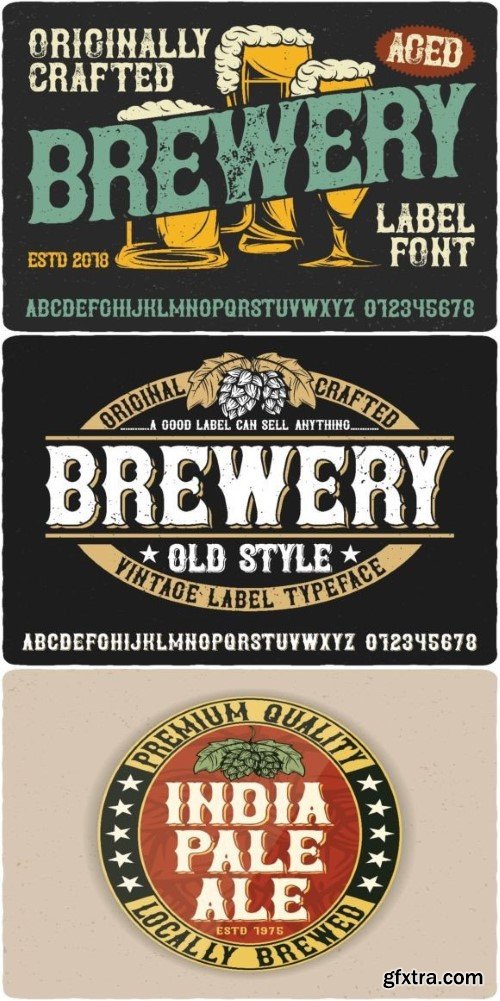
啤酒字体
“Exclusive Display Fonts: Unleash Your Creativity in Amazing Style! Get high-quality display fonts that will take your designs to the next level. This font was designed with care to give your project an attractive and full of character look. Main feature: – Unique Design: Each character is carefully designed to ensure uniqueness in each character. – Flexibility: Suitable for a variety of creative projects, such as posters, logos, banners and more. – Best Quality: This font was created with the highest quality for sharp prints and digital viewing. Add a professional and creative touch to your designs with this display font. Get it right away and start creating stunning masterpieces!”